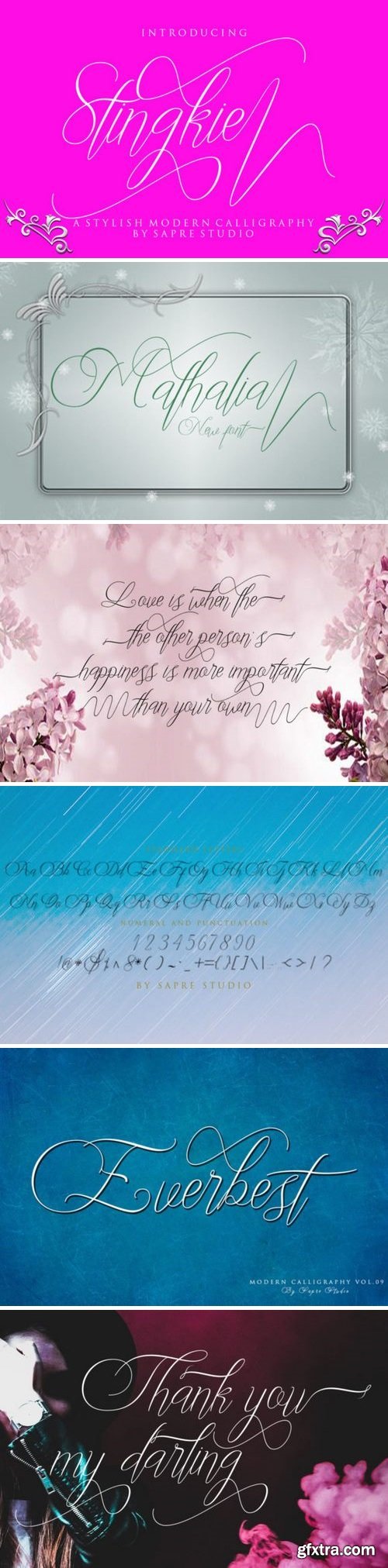
字体包 - Stingkie 192676
Fontbundles - Stingkie 192676
The Stingkie is an amazing script font. It has a varying baseline and brings a classic and modern touch.